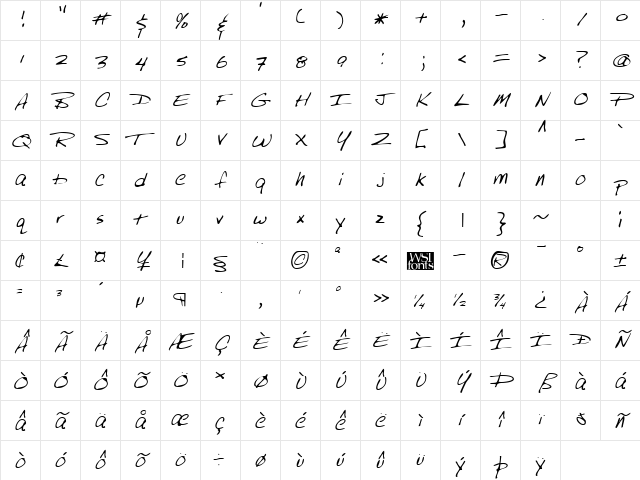
RubysHand Regular
Design Context for RubysHand
RubysHand flows with the natural rhythm of handwritten lettering, making it ideal for designs that call for warmth and personal expression.
Font Pairing: Combine RubysHand with a simple geometric sans for maximum contrast - the tension between flowing curves and clean structure is a classic typographic pairing.
Pro Tip: Use RubysHand for short runs of text - names, titles, or taglines. Extended body copy in script faces tires the eye quickly.